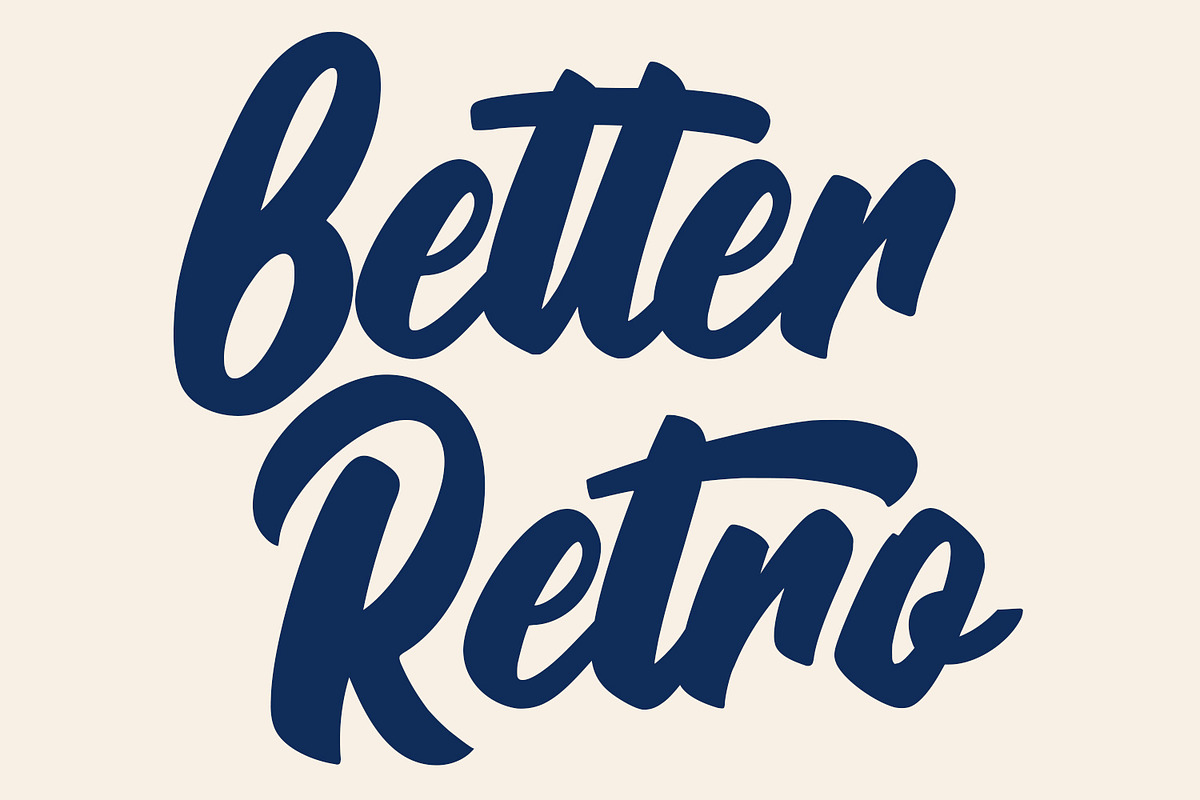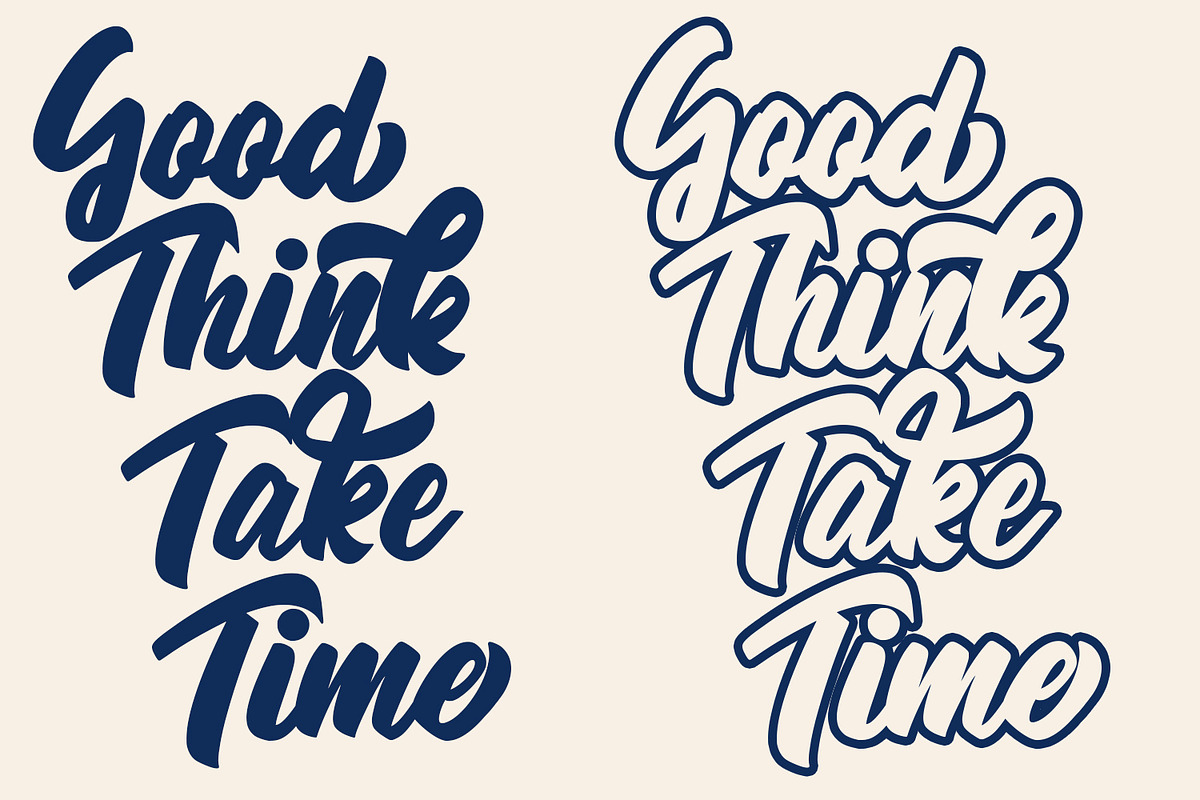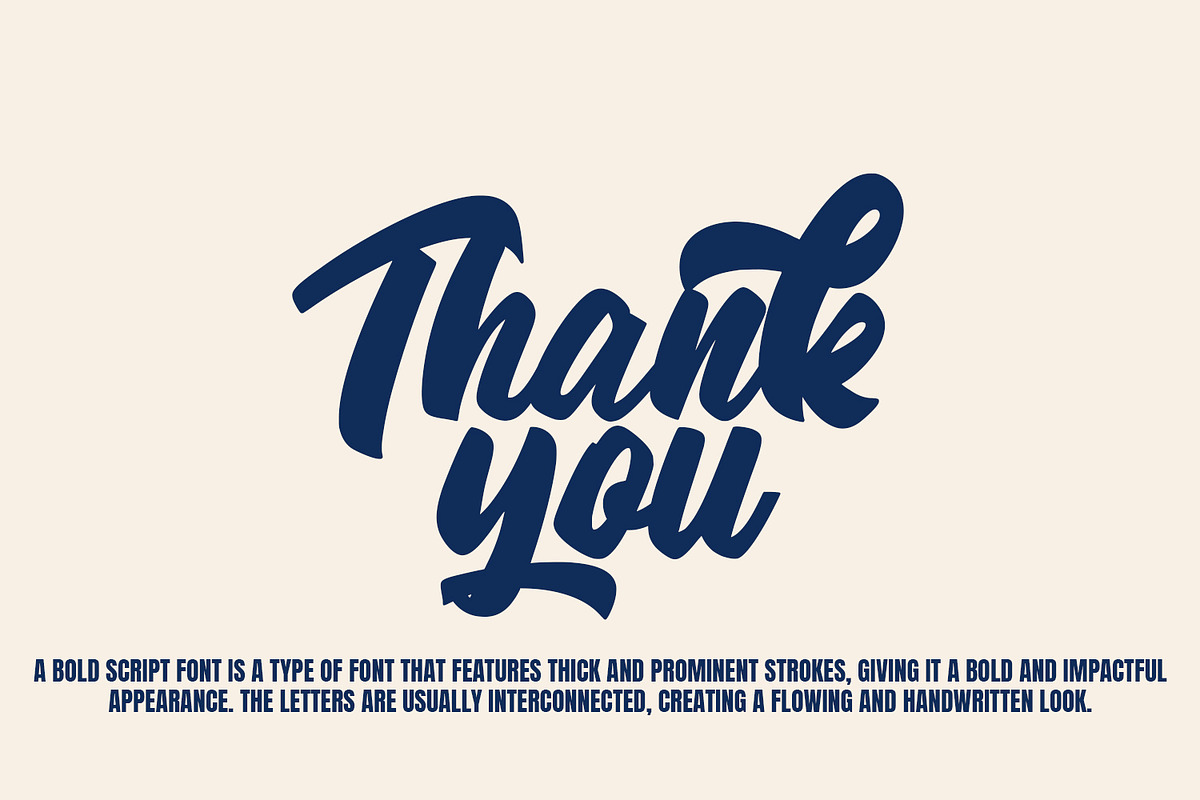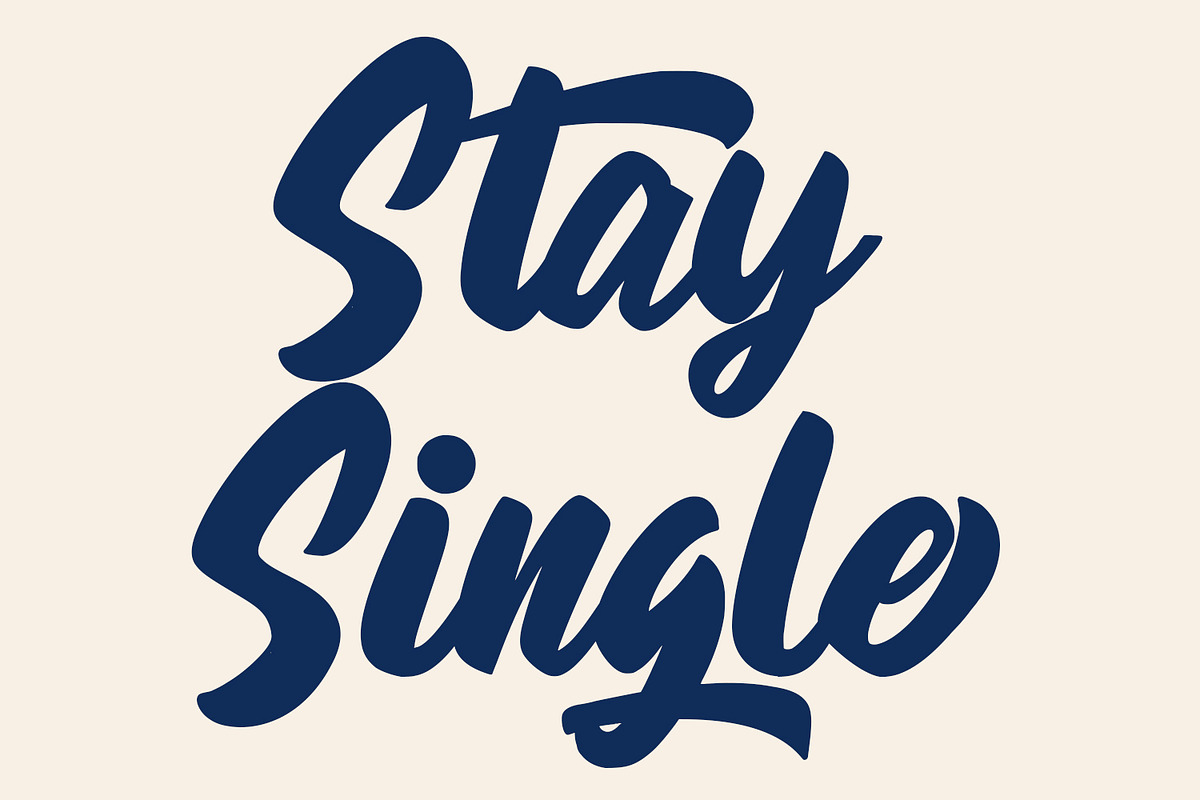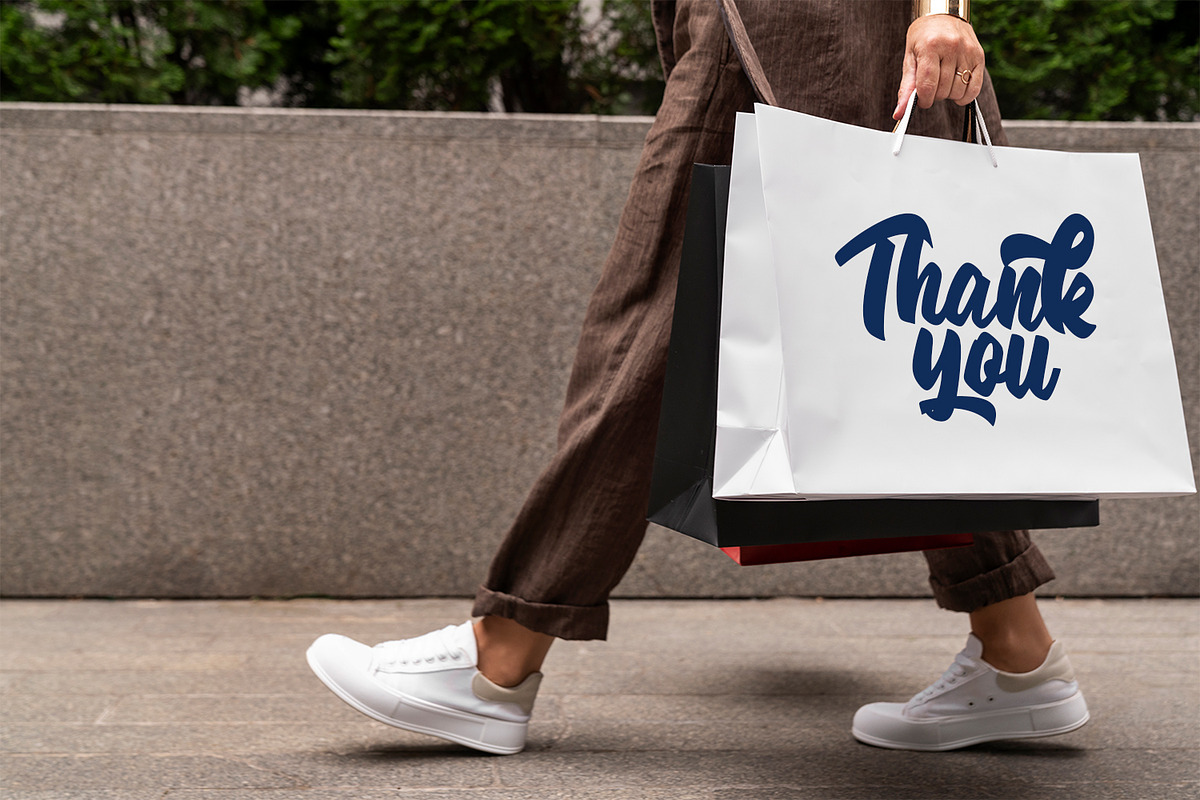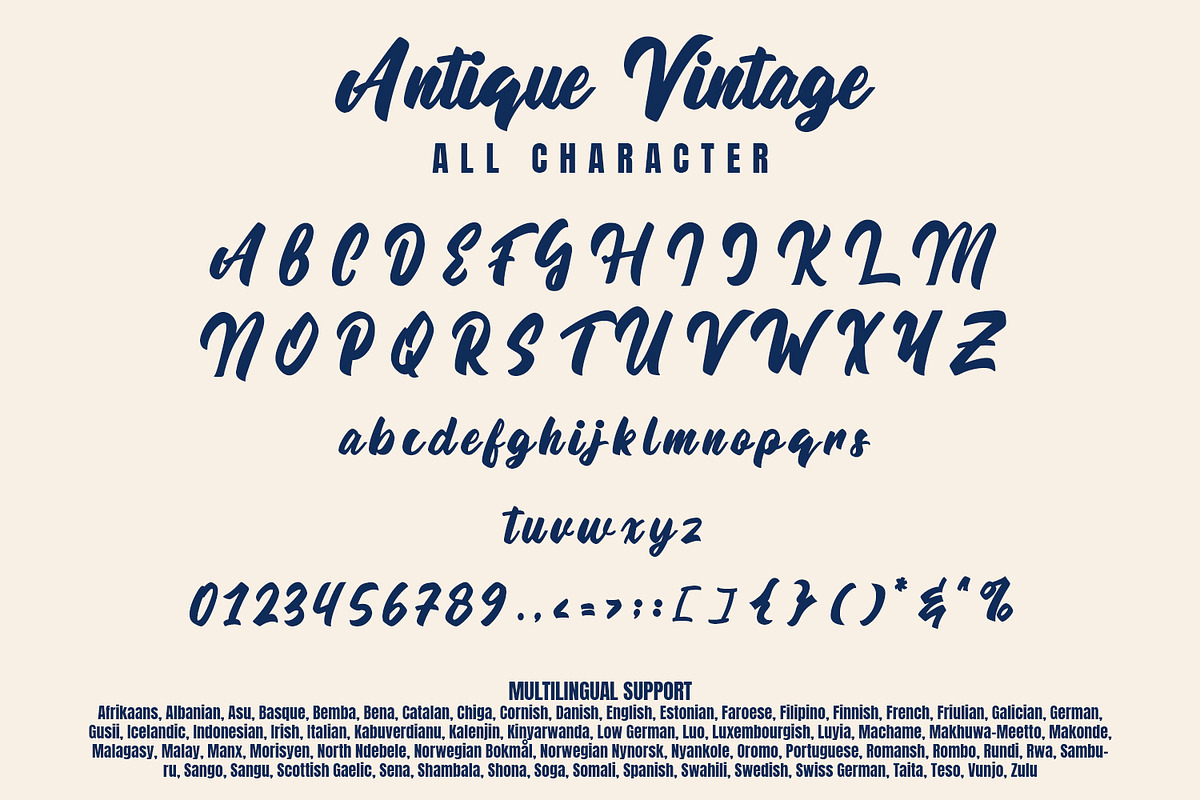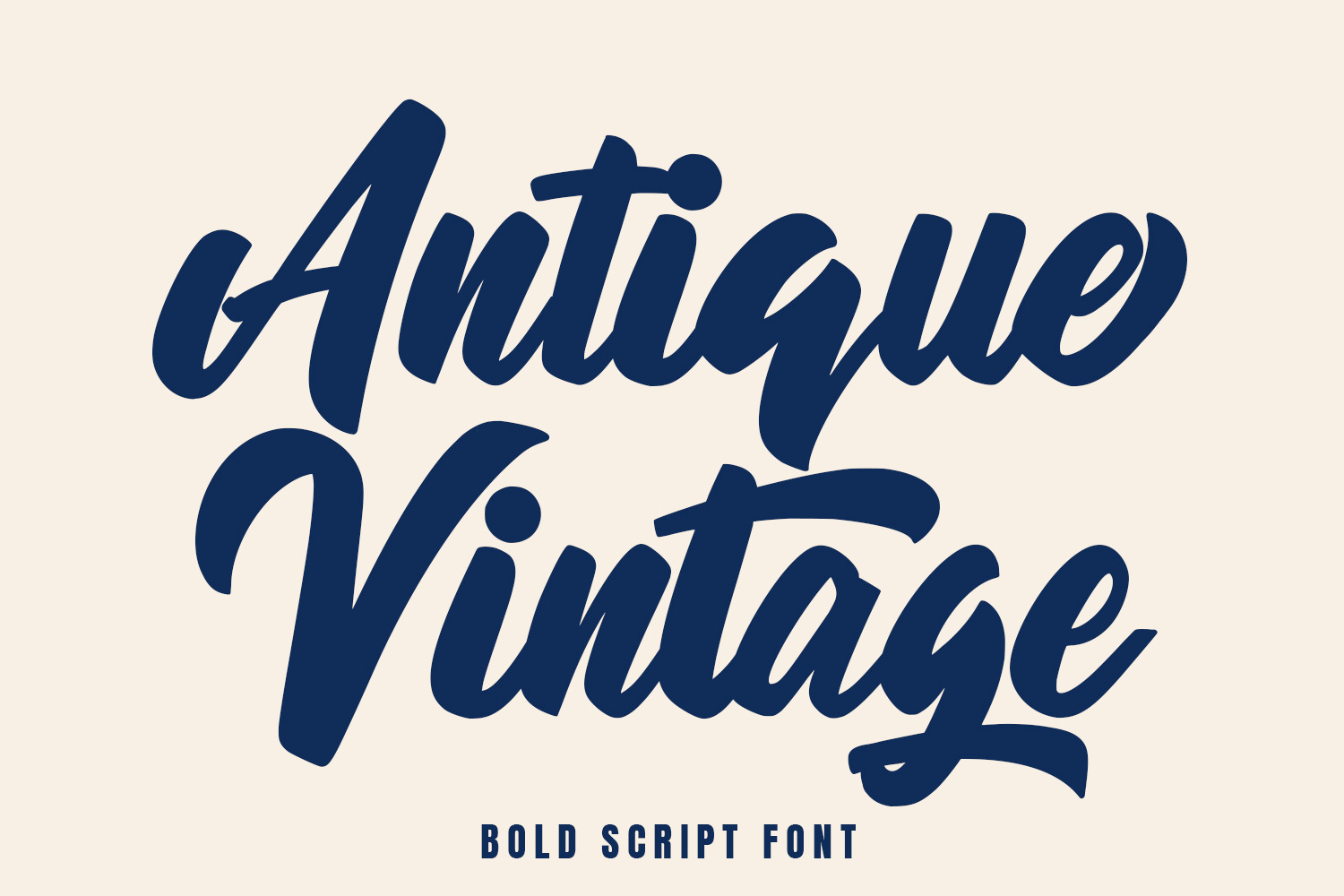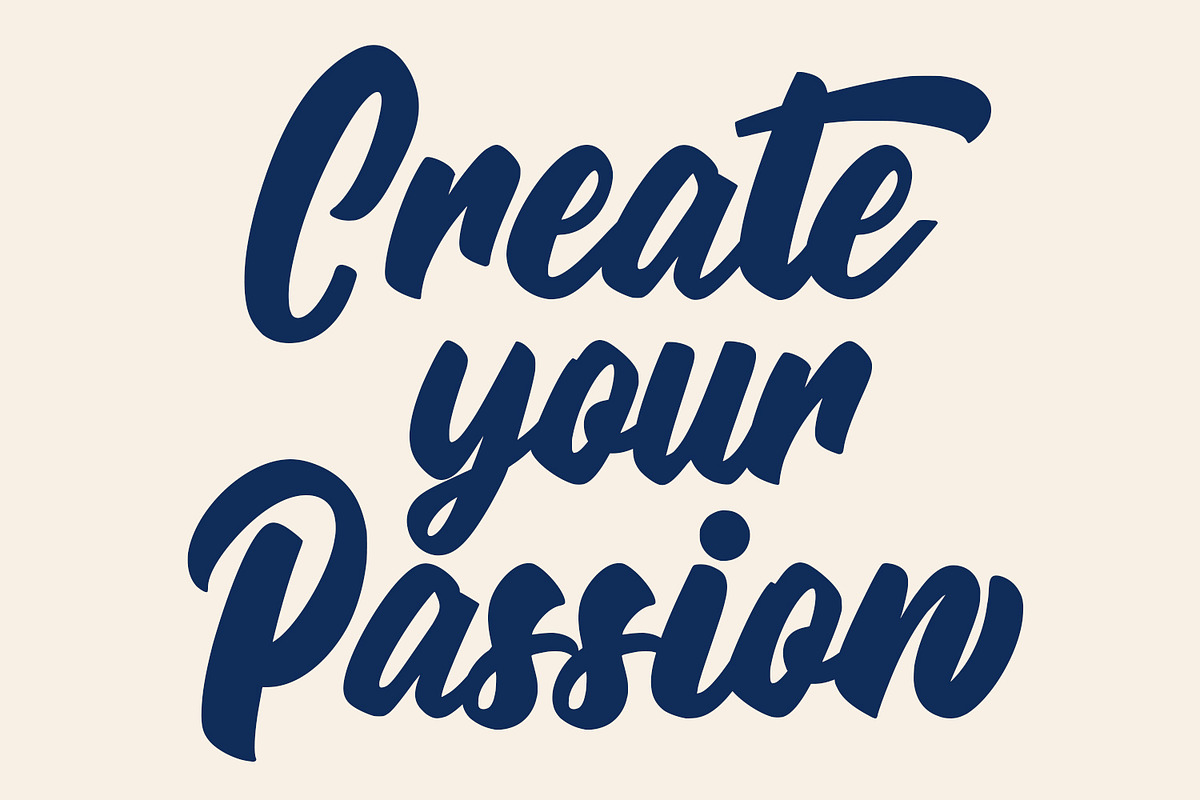
Antique Vintage - Script Font
Antique Vintage - Script font is a type of font that features thick and prominent strokes, giving it a bold and impactful appearance. The letters are usually interconnected, creating a flowing and handwritten look.
The boldness of the font makes it stand out and grabs attention, making it a popular choice for headlines, titles, and logo designs. It exudes confidence, strength, and creativity, making it suitable for various design projects that require a strong visual impact.
The strokes of a bold script font are often exaggerated, emphasizing the curves and loops of each letter. This creates a dynamic and expressive style that adds personality and flair to any text.
Bold script fonts can vary in their level of decoration and embellishment. Some may have additional swirls and flourishes, while others may have a more simplified and minimalist design. However, the defining characteristic is the heavier weight and boldness of the strokes.